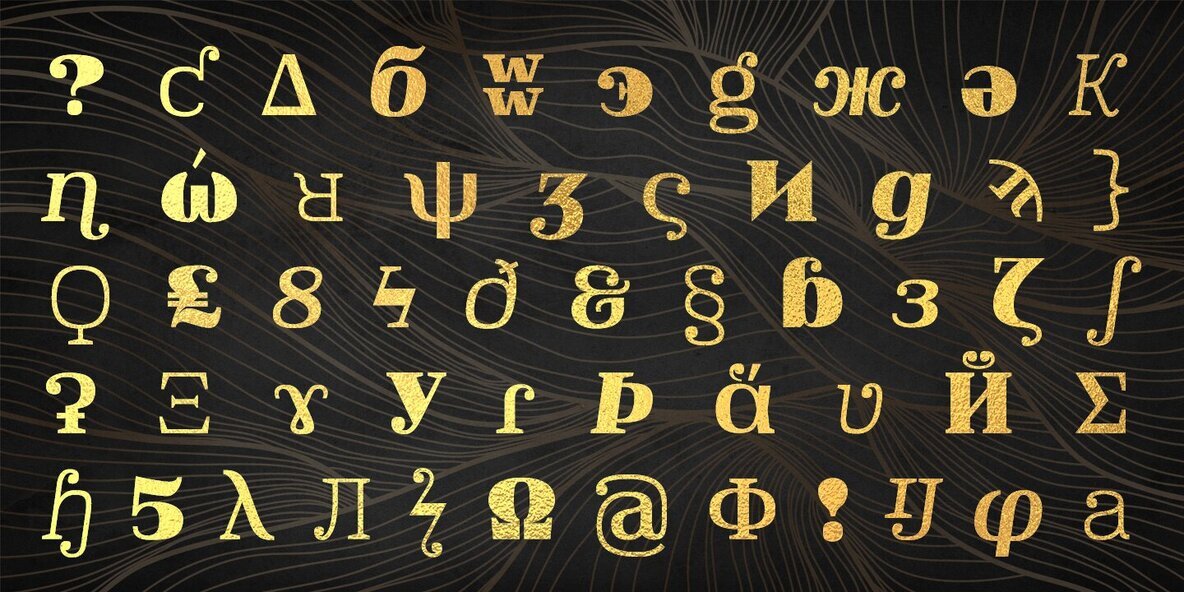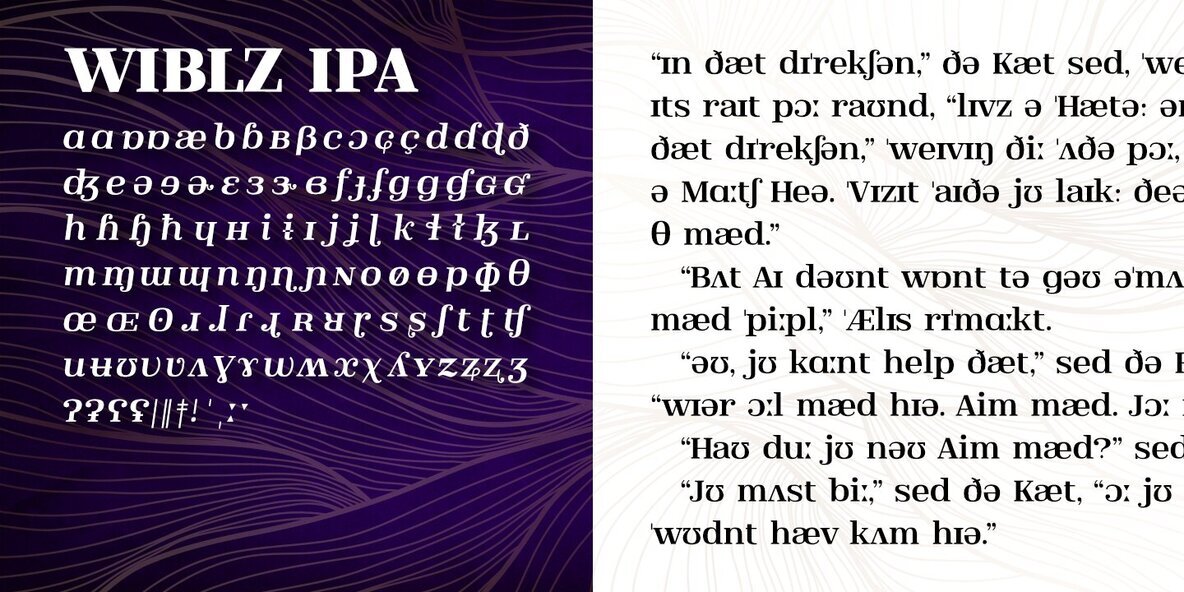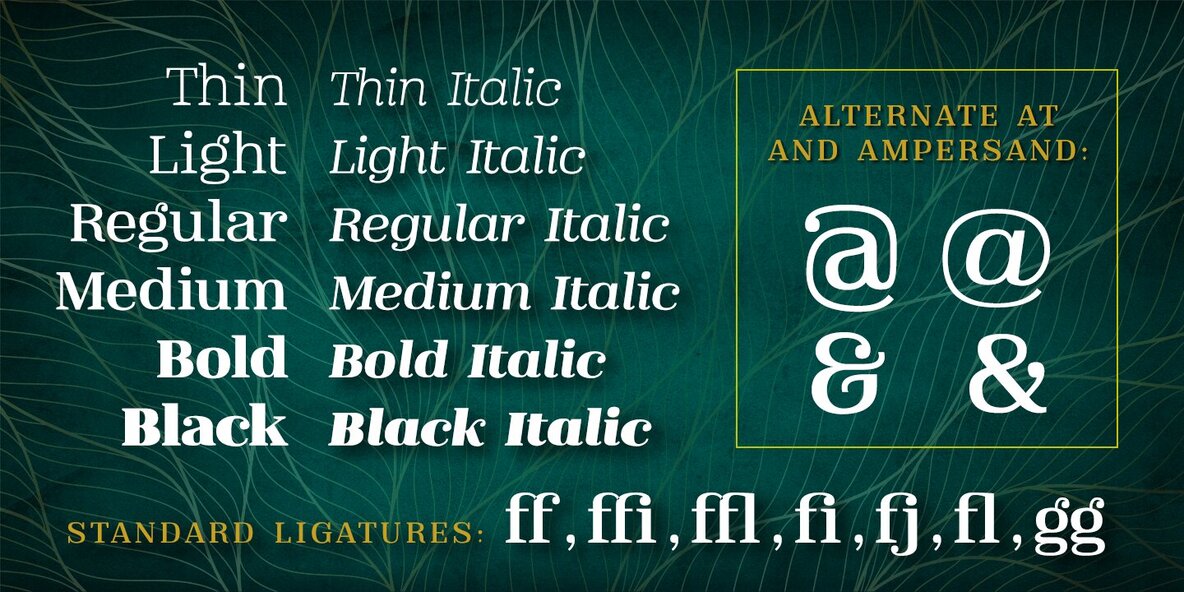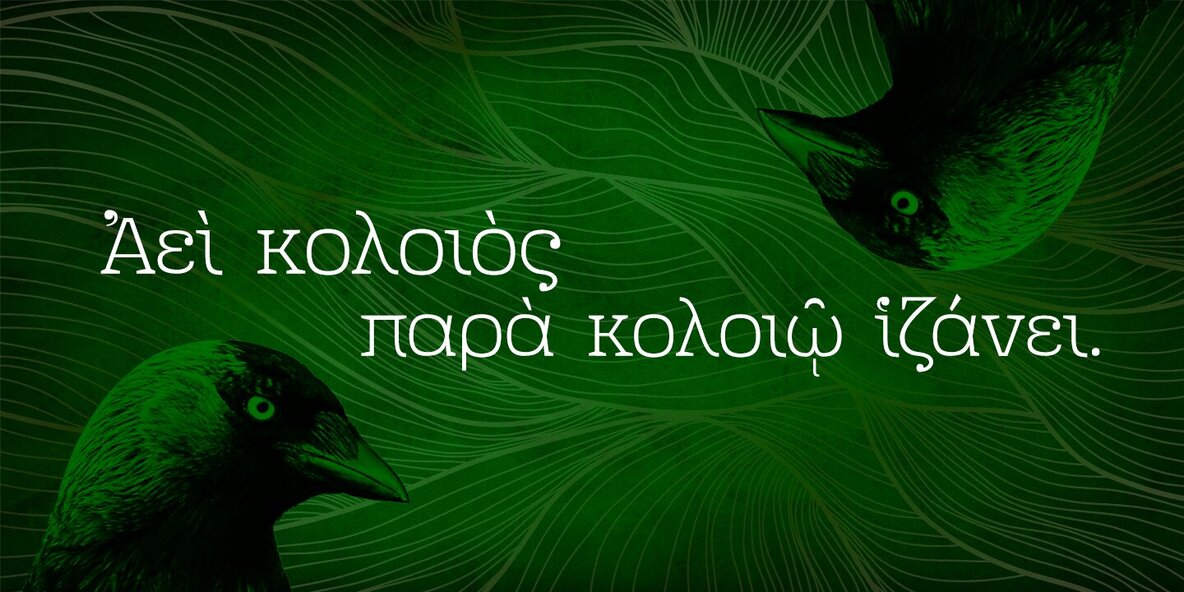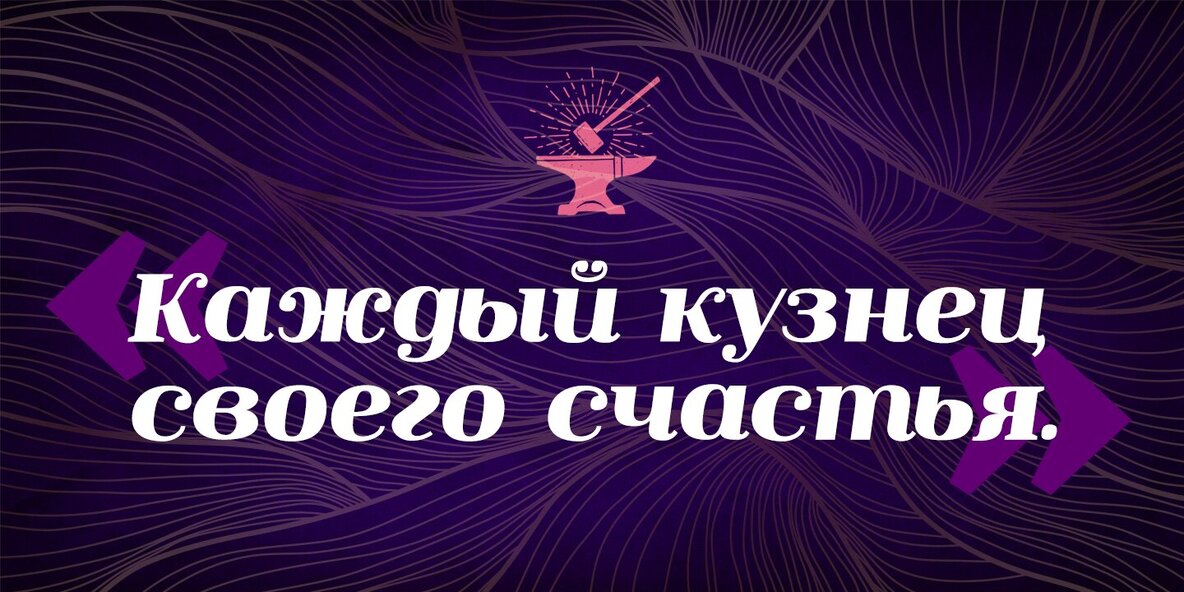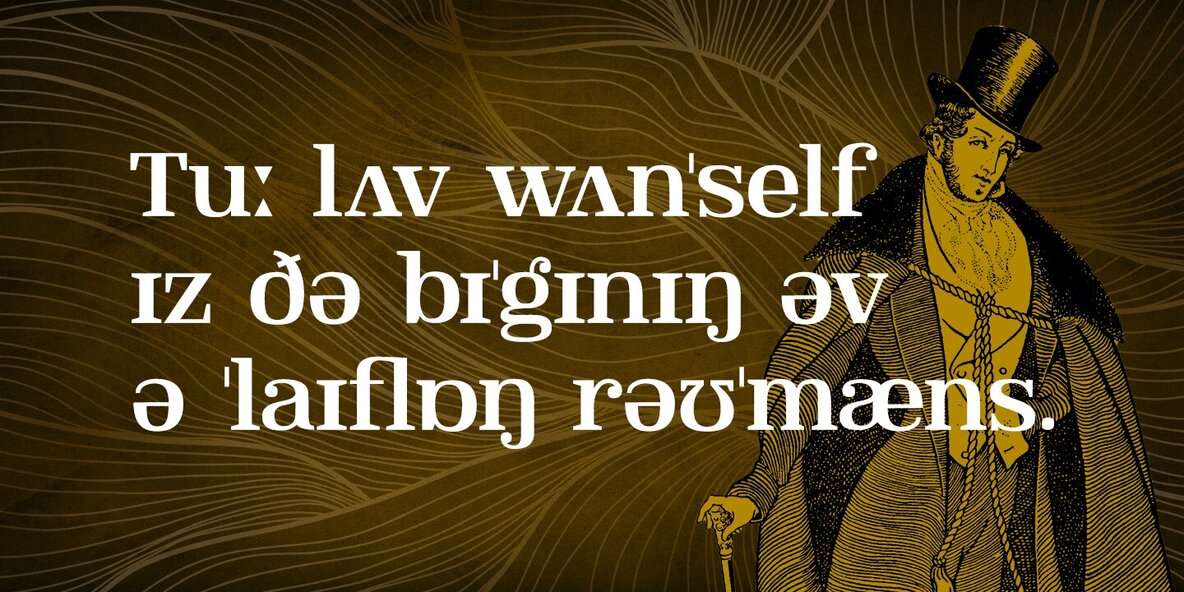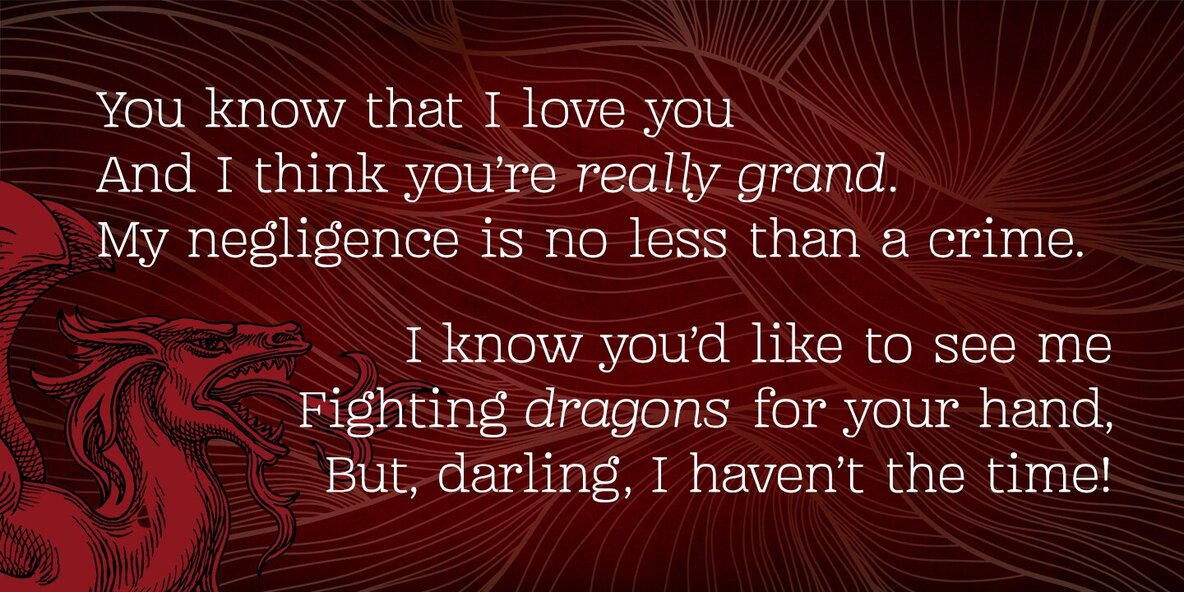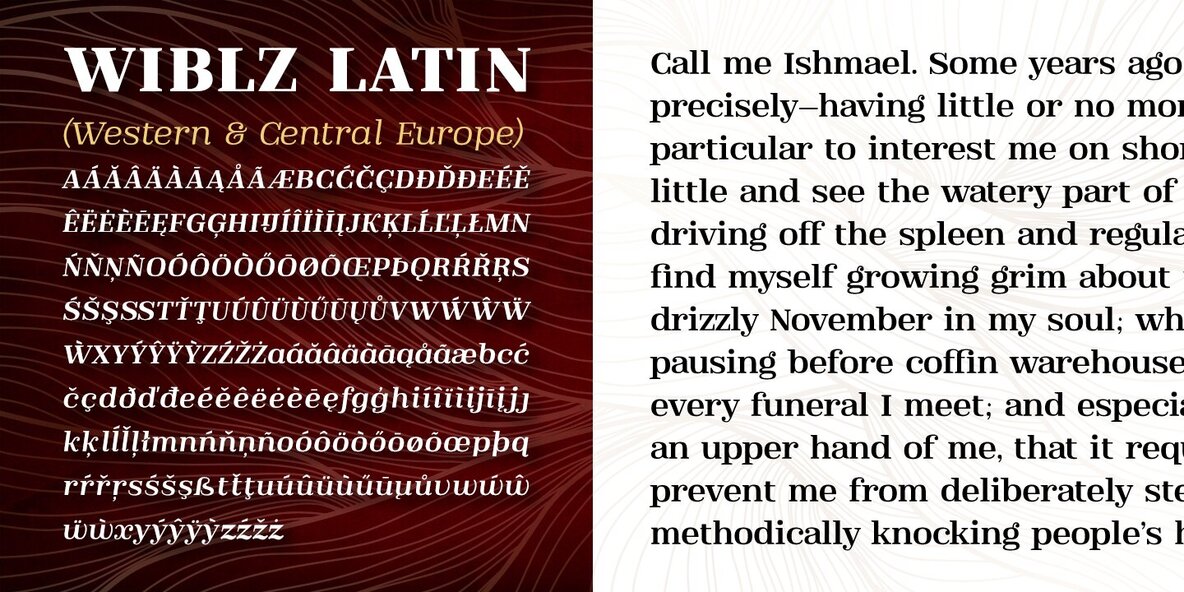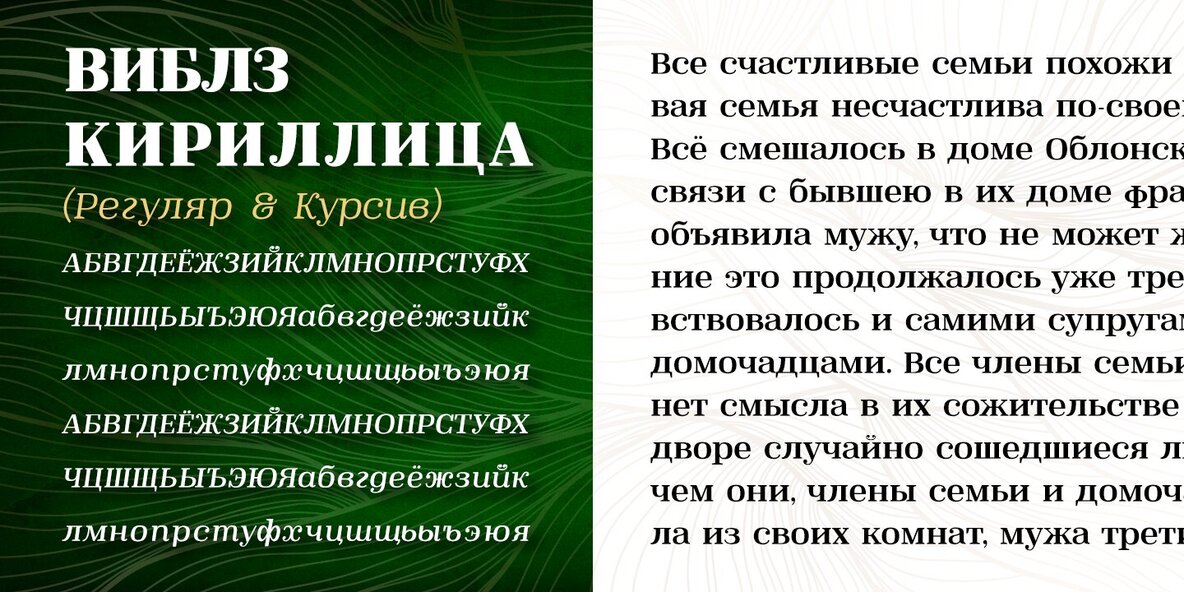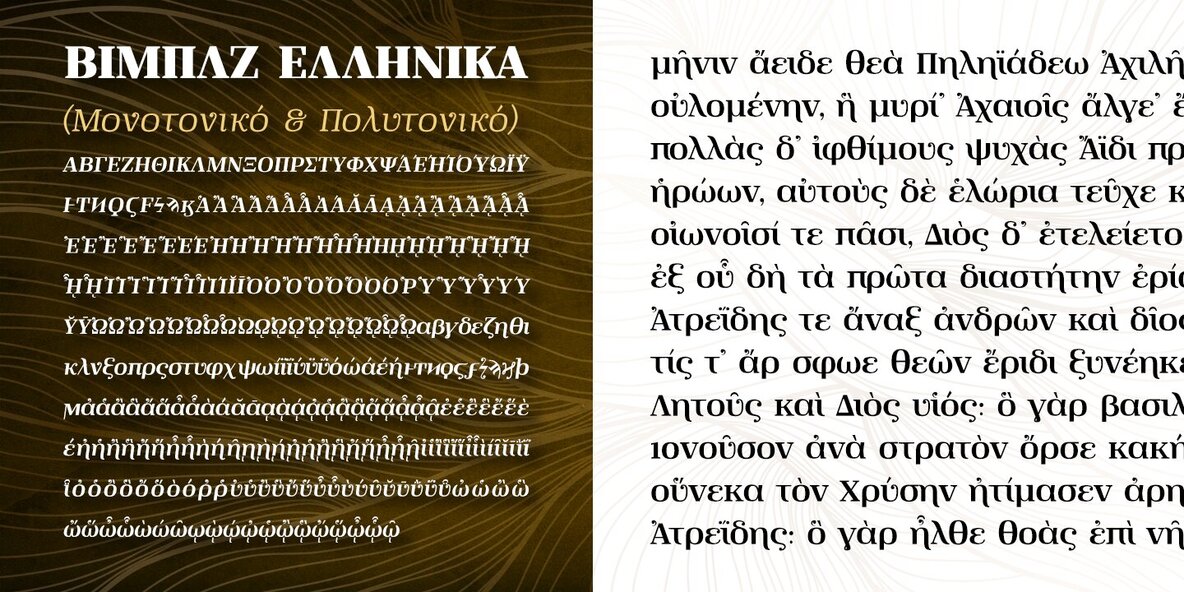
Meet Wiblz (say “Vibbles!”). Wiblz is a Modern/Didone text family in the great tradition of squarish text families like Walbaum, Ibis, and Georgia. He has a high x-height and a great balance of legibility and readability.
Plus, he supports the Latin alphabet, basic Cyrillic, Monotonic and Polytonic Greek, and the International Phonetic Alphabet. That makes him superlative in his usefulness and versatility!
When searching for a didone typeface, it's often a struggle between blackness/legibility and stylishness/contrast. this is especially true of squarish didones, which number less than their round counterparts. Wiblz is an excellent balance between the two — clean and striking, good for uses from text to heading, and at home in print and on screen.